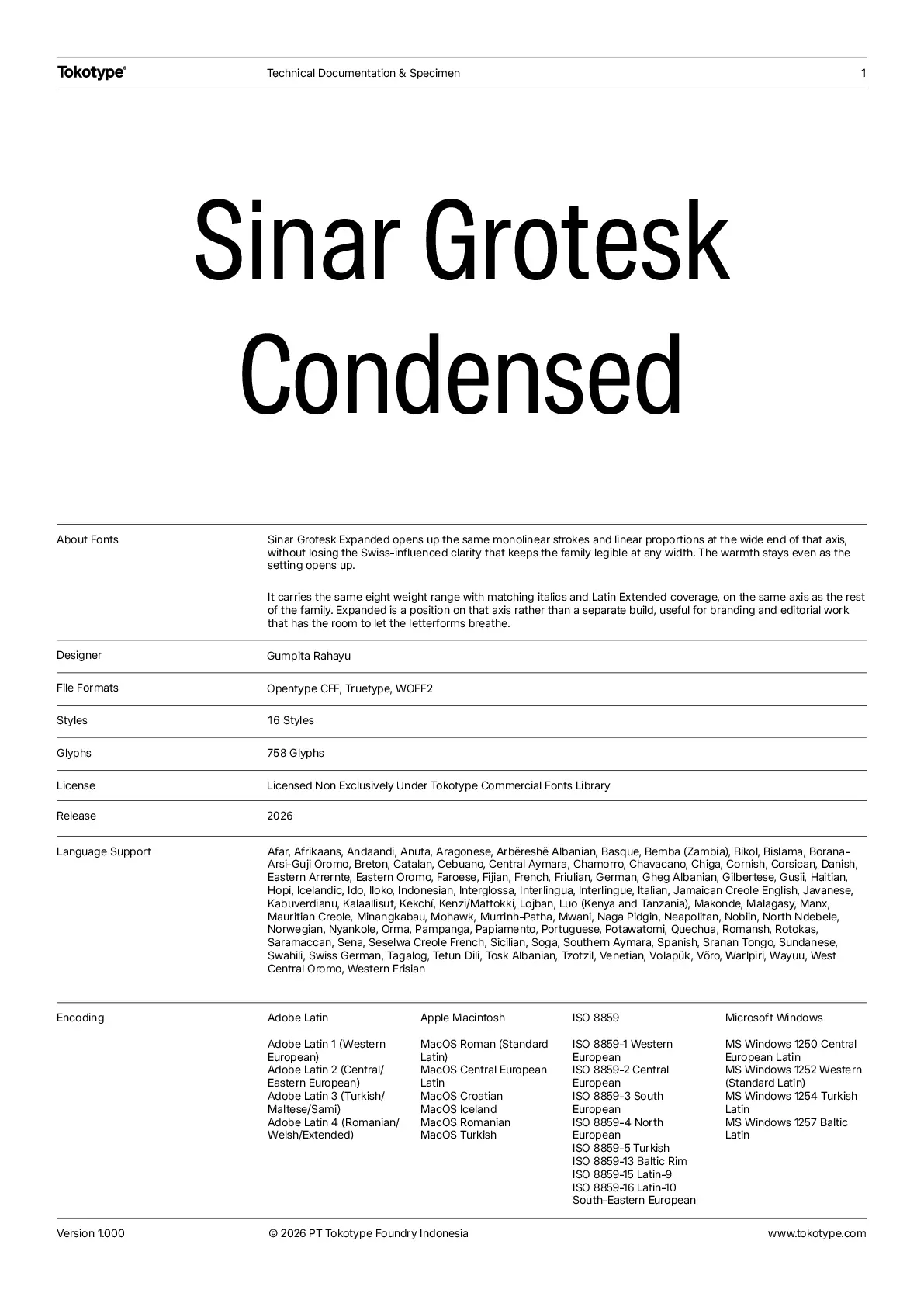
Sinar Grotesk Condensed
Sinar Grotesk Condensed pulls the same monolinear strokes and linear proportions tighter, at the narrow end of Sinar Grotesk's variable structure, without losing the Swiss-influenced clarity that keeps the family legible under pressure. The warmth stays even as the setting gets more efficient. It carries the same eight weight range with matching italics and Latin Extended coverage, on the same axis as the rest of the family. Condensed is a position on that axis rather than a separate build, which matters for signage and UI work where space runs tight but neutrality still needs to hold.
Designers
Gumpita Rahayu